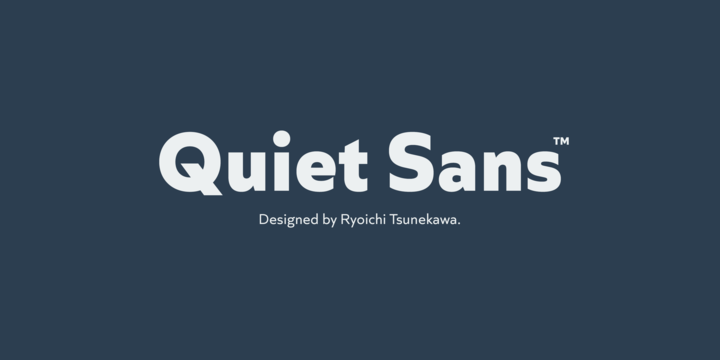
Quiet Sans
Quiet Sans Font
Quiet Sans Font Family
Quiet Sans is a super geometric sans-serif family for text designed by Ryoichi Tsunekawa and the whole family consists of 6 weights from ExtraLight to ExtraBold and their matching Italics.
The basic concept of this family is not only to make crisp, sharp and strong impact by geometric letter form but also to be legible and readable even on small size screen by their sophisticated design.